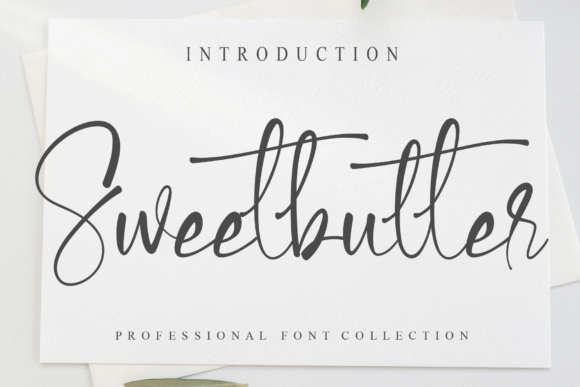
About Sweetbutter Font
Sweetbutter is a sweet and delicate handwritten font. Dainty and joyful, this font will be ideal for writing wedding invitations, cards or any other design that may need a romantic, personalized touch!